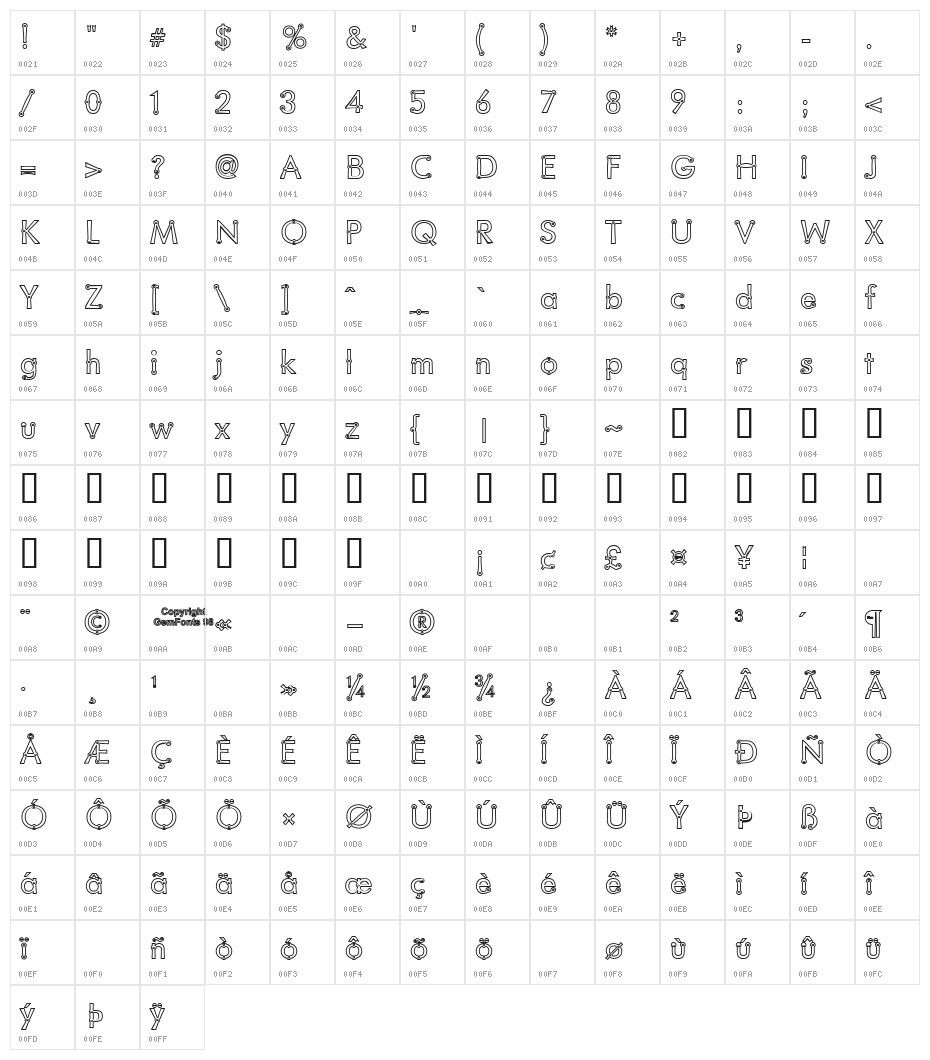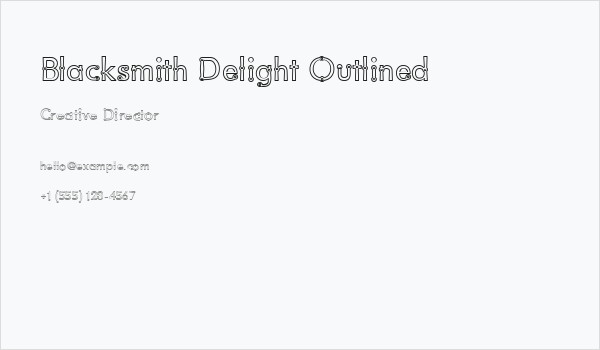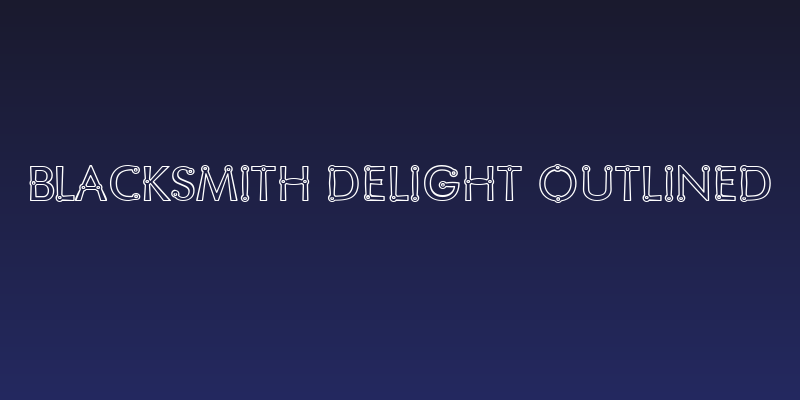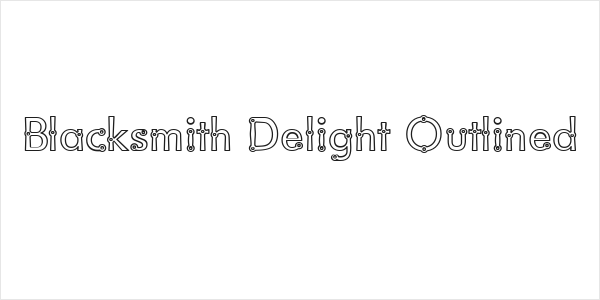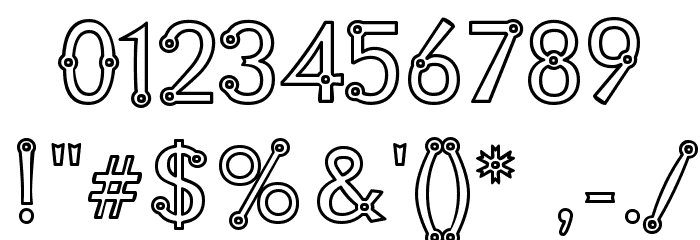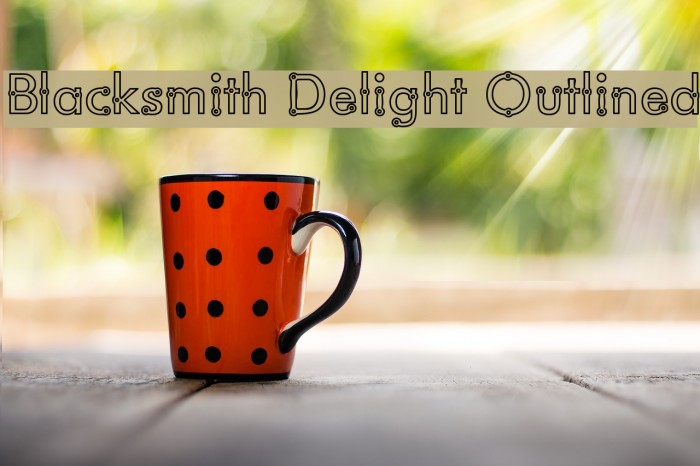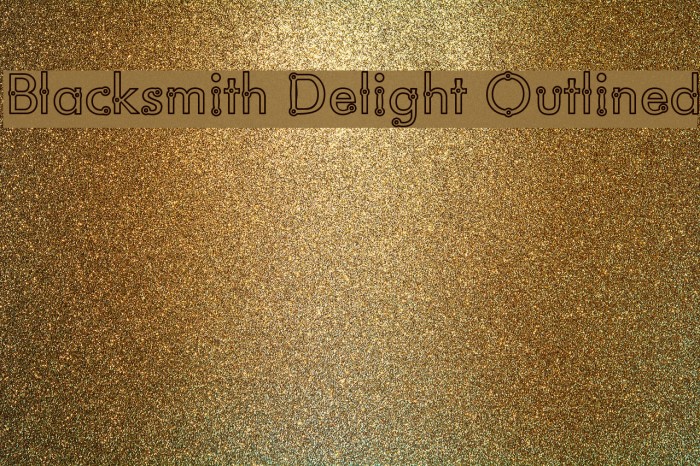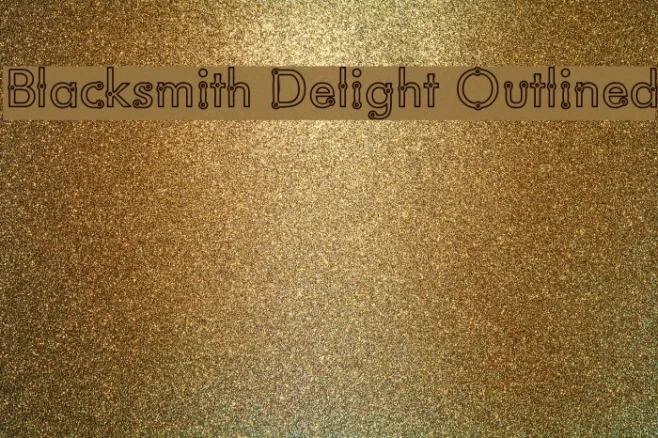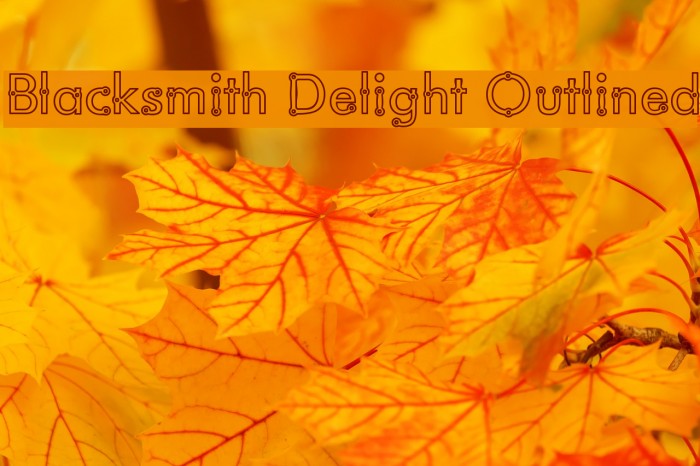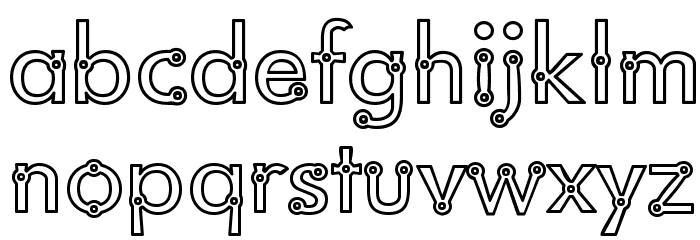
Blacksmith Delight Outlined Font
Blacksmith Delight Outlined Description
This font features a unique outlined style with circular embellishments at key points, creating a mechanical and industrial aesthetic. The uppercase and lowercase letters maintain a consistent geometric structure, while the numbers and special characters follow the same design principles. The font's distinct outline and decorative elements make it stand out, offering a bold and eye-catching appearance. It combines modern design with a touch of vintage flair, making it suitable for creative and artistic projects.
| Overall Style | Modern, Vintage |
| Proposed Projects | Ideal for branding, posters, and creative designs where a bold, industrial look is desired. |